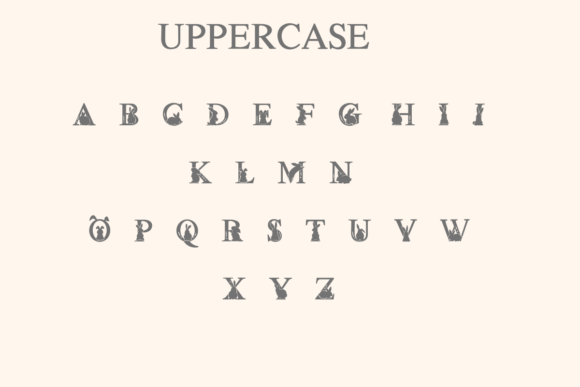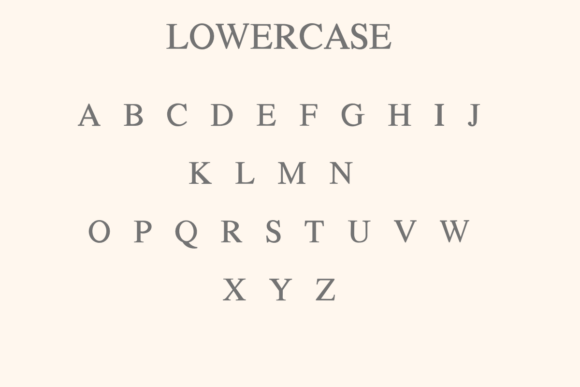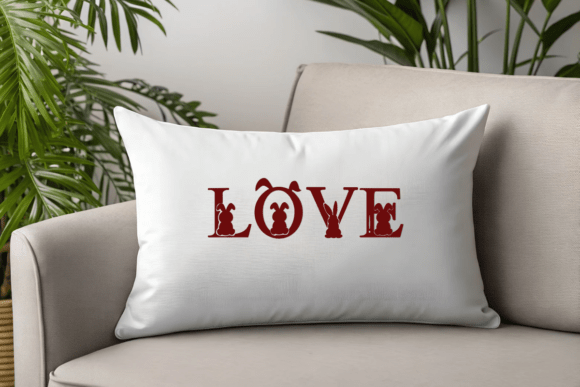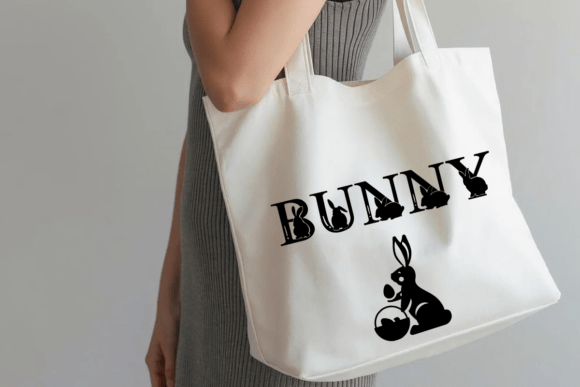
Hop into Spring with the Easter Bunny Font
I’ll never forget the time I was working on a festive Easter project for a client, and I just couldn’t find the right font to capture the whimsy and playfulness of the season. I scoured the internet, tried out dozens of fonts, but nothing seemed quite right. That was until I stumbled upon the Easter Bunny font – a charming, decorative typeface that instantly brought my design to life. In this article, I’ll share my experience with this delightful font, and show you how to make the most of its features in your own projects.
A Personal Review of the Easter Bunny Font
- Unique integration of adorable rabbit silhouettes with classic serif letterforms ✅
- Perfect for holiday branding, especially for Easter-themed projects 🎉
- Pairs beautifully with soft pastel color palettes and hand-drawn floral illustrations 🌸
- Adds a touch of storytelling to every word, making it ideal for creative projects 📚
While the Easter Bunny font is incredibly versatile, there are a few things to keep in mind. For example, the font’s playful design can be overwhelming if used in large blocks of text. Additionally, some of the more intricate details may not render well at very small font sizes. However, these limitations are easily worked around with a little creativity and experimentation.
One thing to note is that the Easter Bunny font can be a bit 🤔 finicky when it comes to kerning. Some letters may need to be adjusted manually to get the perfect spacing. But trust me, the end result is well worth the extra effort.
The Story Behind the Easter Bunny Font
The Easter Bunny font was designed by a talented type designer who wanted to capture the whimsy and magic of the Easter season. Inspired by vintage Easter cards and illustrations, the designer created a unique and playful font that would bring joy to designers and crafters alike. With its adorable rabbit silhouettes and classic serif letterforms, the Easter Bunny font is sure to delight audiences of all ages.
Q: What is the Easter Bunny font best used for?
A: The Easter Bunny font is perfect for holiday branding, Easter-themed projects, and creative designs that require a touch of whimsy and playfulness.